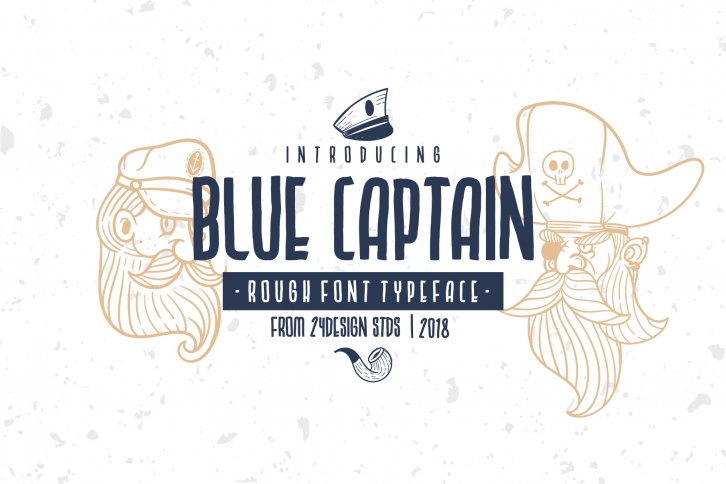
BLU CAPTAIN ROUGH is a beautiful font that was designed by 24design studios. It's a great choice for designers and creatives who need such a font. It was released on August 8, 2018 and the file size is 21.9 MB. BLU CAPTAIN ROUGH may give a more youthful, expressive and casual look to your project. It is a very beautiful, refined, elegant, and high-quality font.